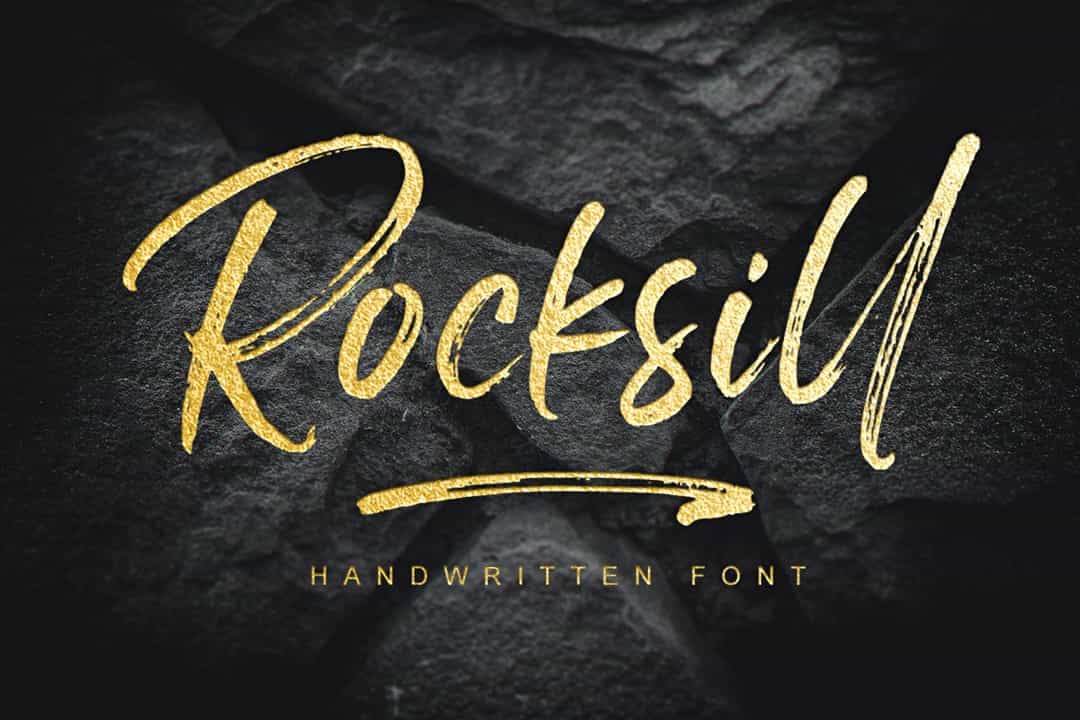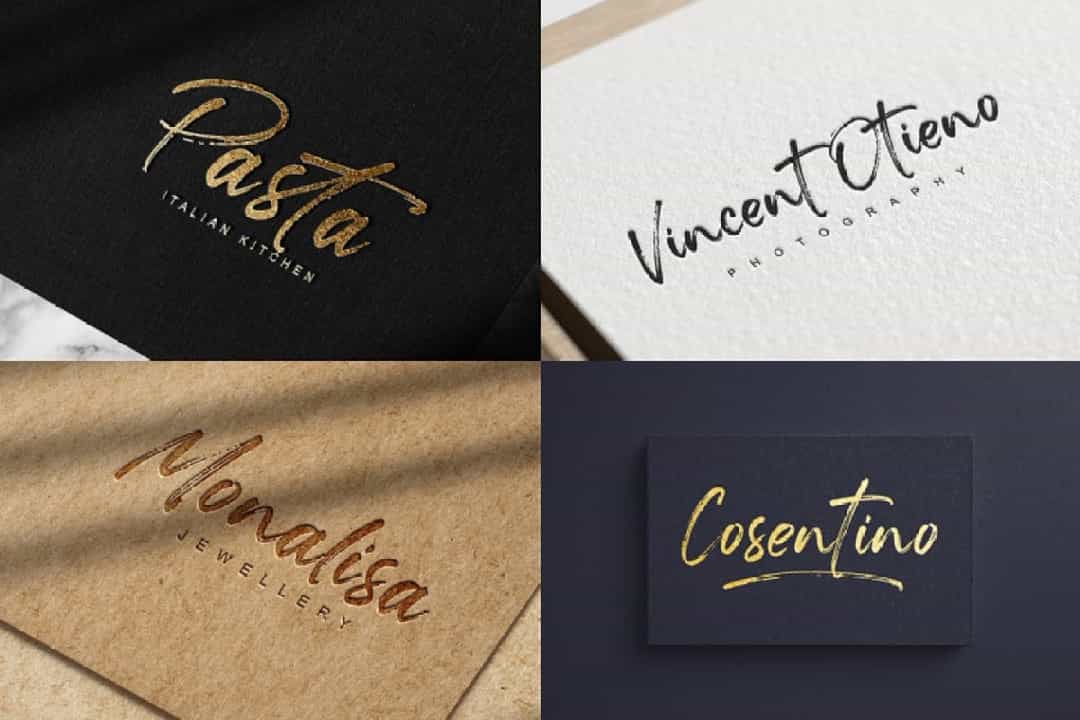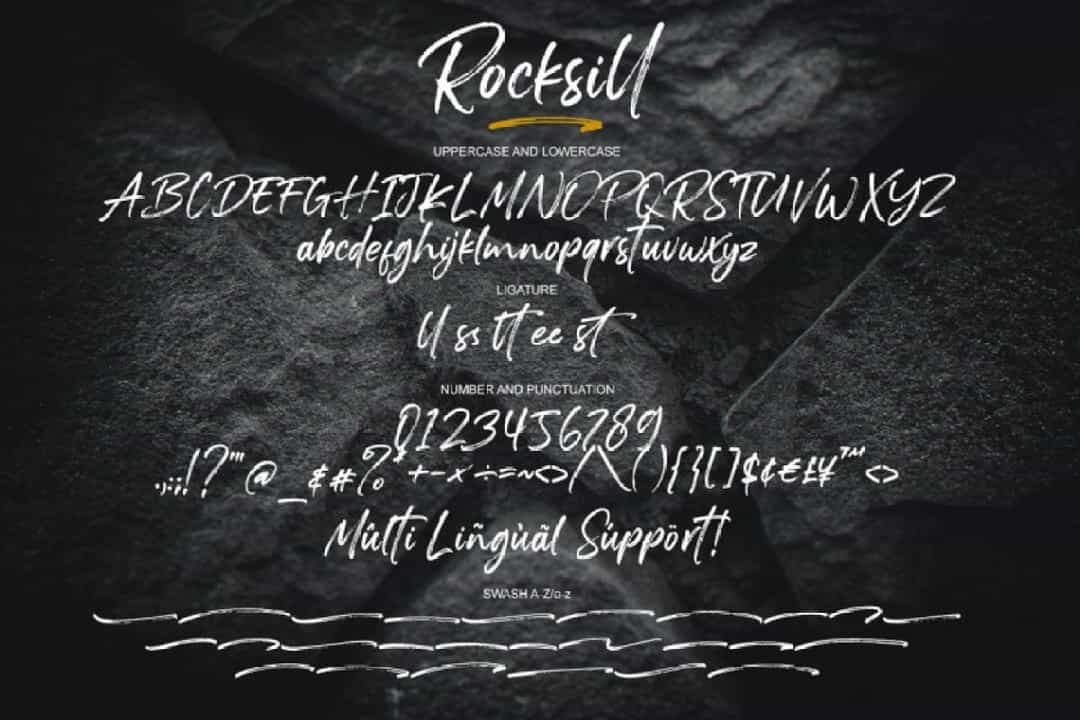
Rocksill is a handwritten brush typeface that was created with natural brush strokes and texture making it perfect for watermarking of albums, photography logos, business cards and many other projects. Rocksill comes with capital and small lettering, numbers and other languages, punctuations and punctuation marks that can fit any lettering design.